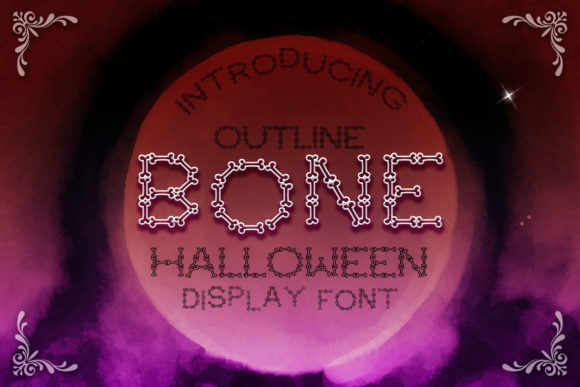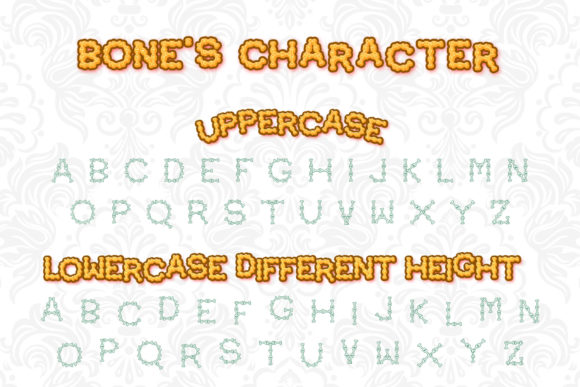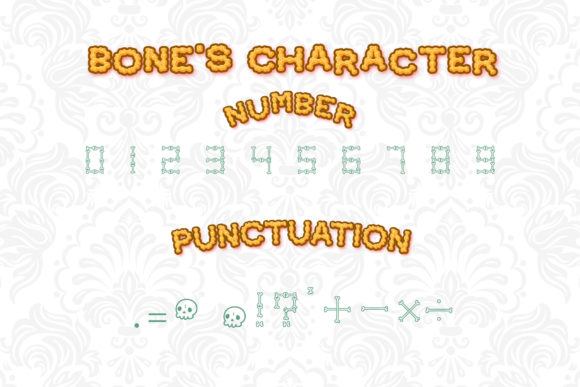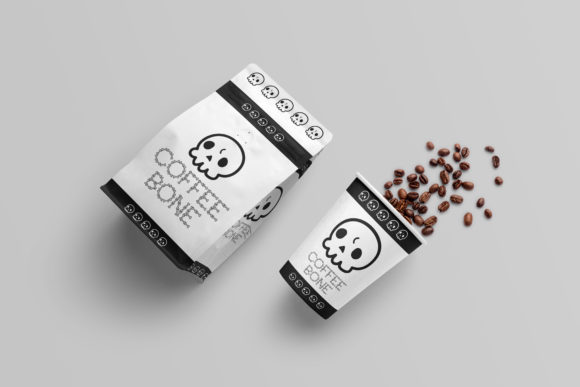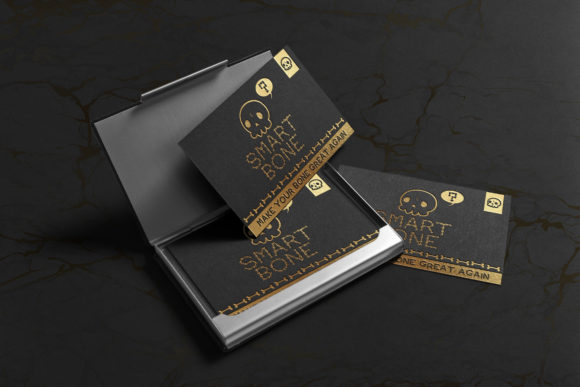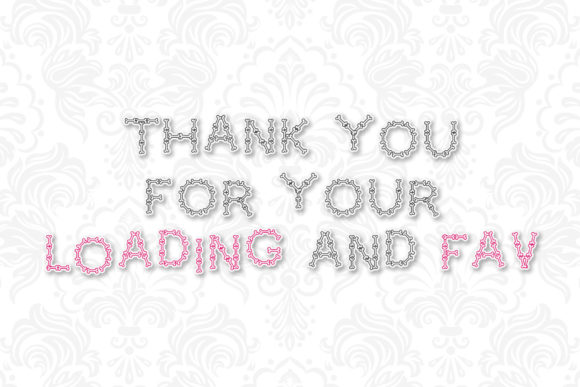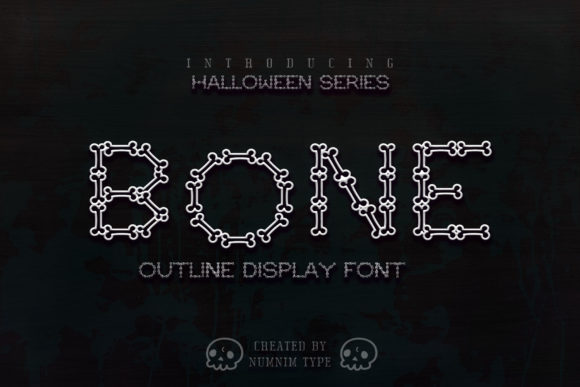
Bone Font: The Spooky Display Font for Your Halloween Projects
Bone is a great display font that features a spooky look, making it perfect for your Halloween-themed projects! This font is designed to add a touch of eeriness and excitement to your designs, and it’s ideal for crafters and designers who want to create eye-catching and unique content.
What Makes Bone Font Special?
Bone font is a one-of-a-kind display font that stands out from the rest due to its distinctive and spooky appearance. Its unique design makes it an excellent choice for Halloween-themed projects, such as party invitations, decorations, and social media graphics. The font’s eerie look is sure to grab attention and leave a lasting impression on your audience.
Key Features of Bone Font
- Spooky Appearance: Bone font features a spooky and eerie design that is perfect for Halloween-themed projects.
- Display Font: This font is designed as a display font, making it ideal for headlines, titles, and short phrases.
- Unique Design: Bone font has a one-of-a-kind design that sets it apart from other fonts.
Uses of Bone Font
Bone font is a versatile font that can be used in a variety of ways, including:
- Halloween Party Invitations: Create spooky and eye-catching invitations for your Halloween party.
- Social Media Graphics: Use Bone font to create engaging and eerie social media graphics for Halloween.
- Decorations: Use this font to create spooky decorations, such as banners, signs, and posters.
- DIY Projects: Add a touch of spookiness to your DIY projects, such as crafts, scrapbooking, and card making.
Tips for Using Bone Font
Here are some tips for using Bone font effectively:
- Use it Sparingly: Use Bone font sparingly to make it more effective. Use it for headlines and titles, and a different font for body text.
- Pair it with Other Fonts: Pair Bone font with other fonts to create a unique and eye-catching design.
- Experiment with Colors: Experiment with different colors to find the perfect combination that matches your Halloween theme.
Bone font is a great display font that features a spooky look, making it perfect for your Halloween-themed projects. Its unique design and eerie appearance make it an excellent choice for crafters and designers who want to create eye-catching and unique content. With its versatility and ease of use, Bone font is sure to become a favorite among designers and crafters.